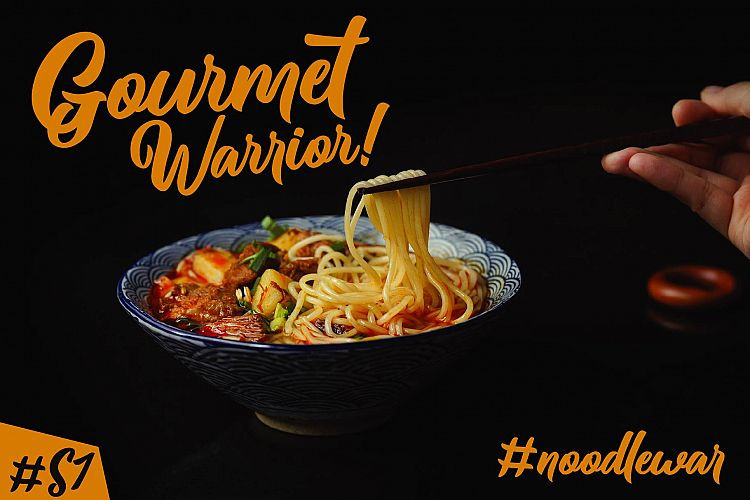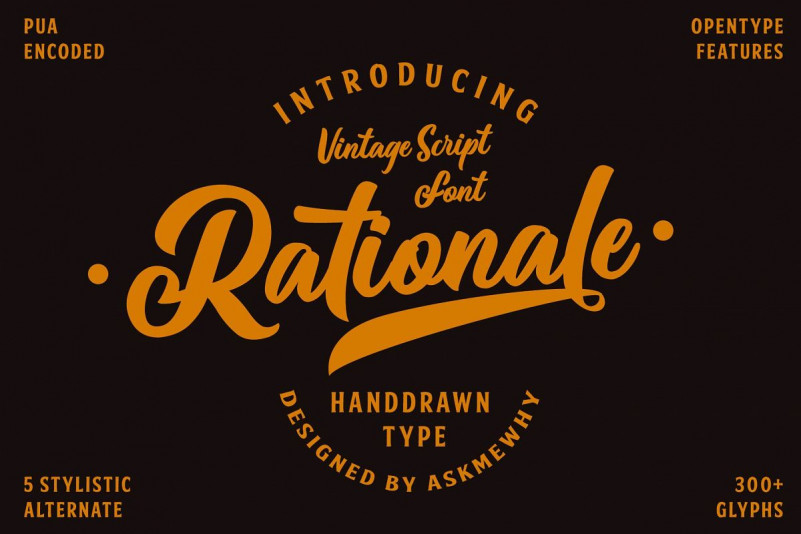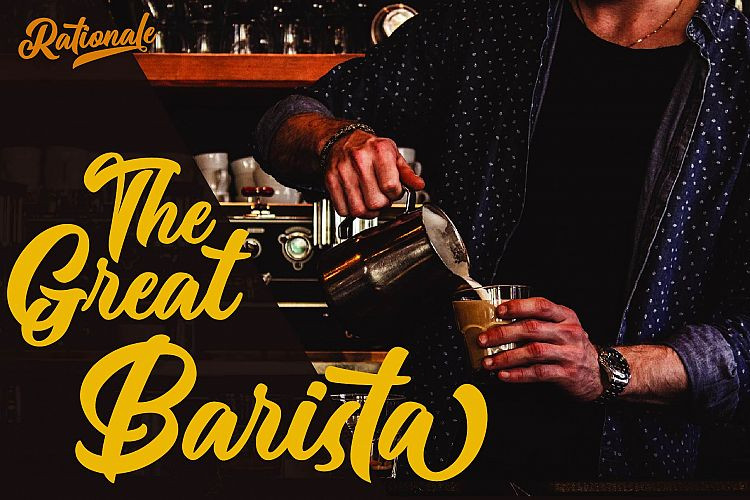
Rationale Vintage Font
Rationale Vintage Script – This font is a basic handdrawn font that really natural , cool & modern handlettered font. I’ts Perfect for logo, branding, stationery, social media posts,
advertisements, product packaging, product designs, label, photography, watermark, special events or anything.